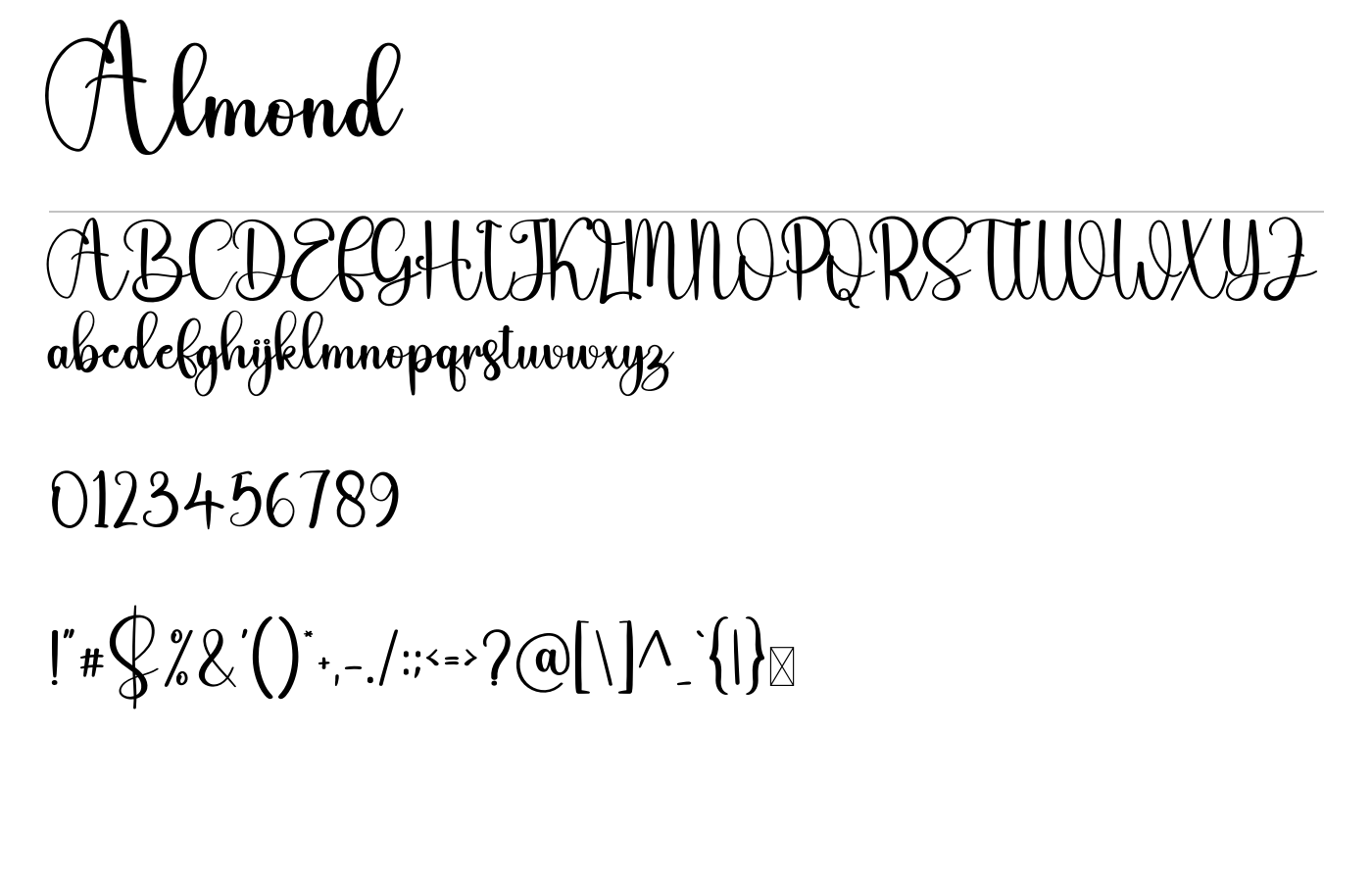
Almond is a charming script font with elegant, flowing letterforms that convey a sense of sophistication and warmth. Its delicate strokes and playful curves make it perfect for invitations, branding, and creative projects that seek a personal, handcrafted touch. This font works beautifully for designs that want to evoke elegance and friendliness with a modern, stylish flair.
Almond Font
About Almond Font